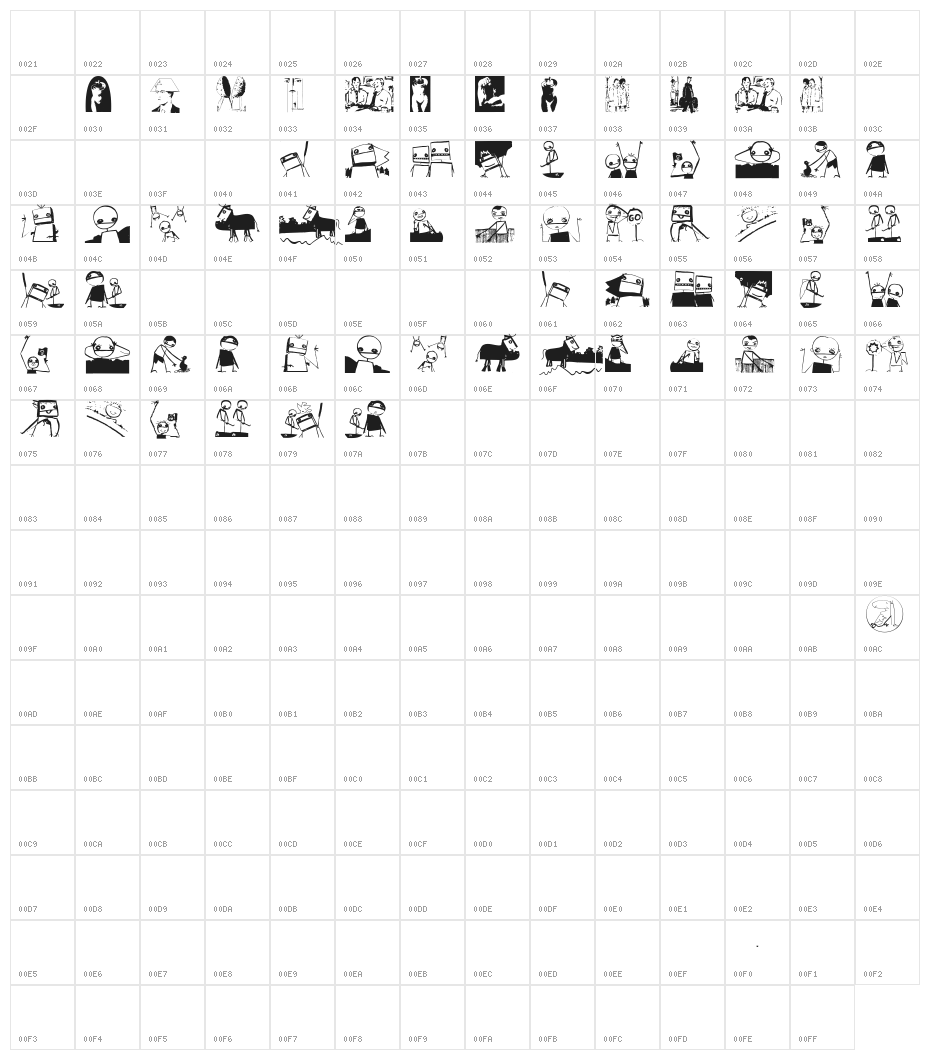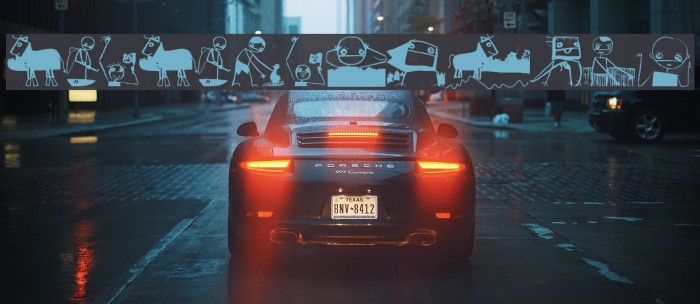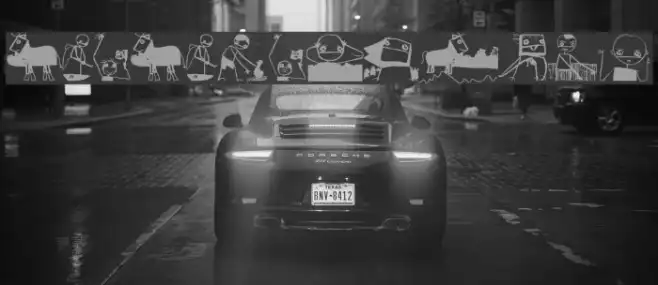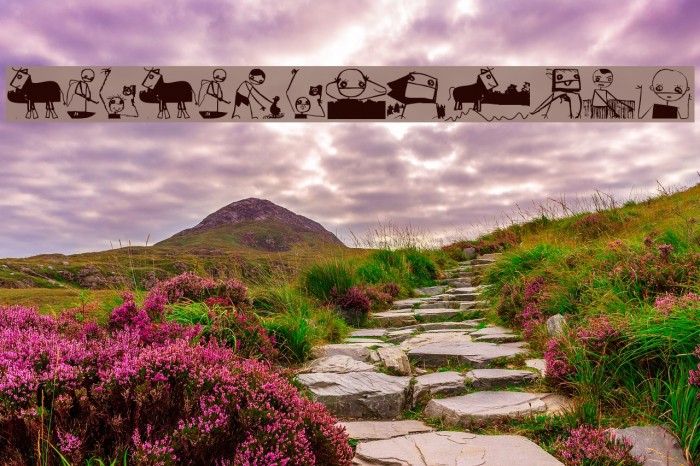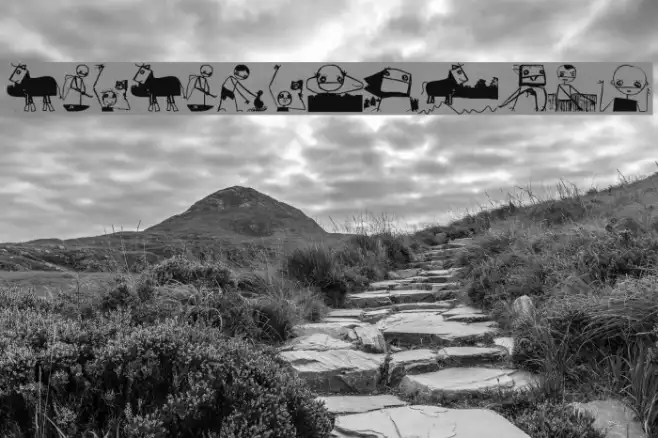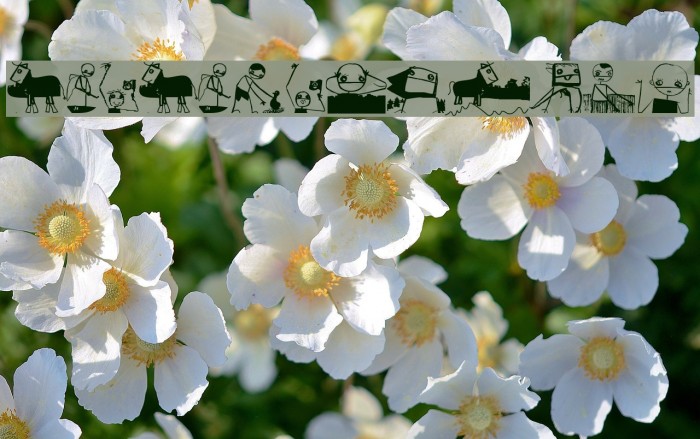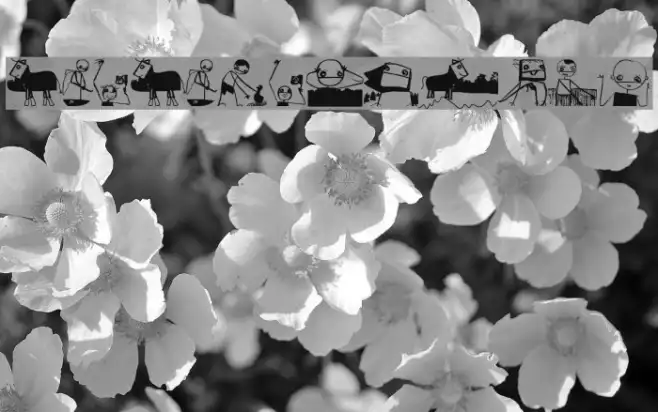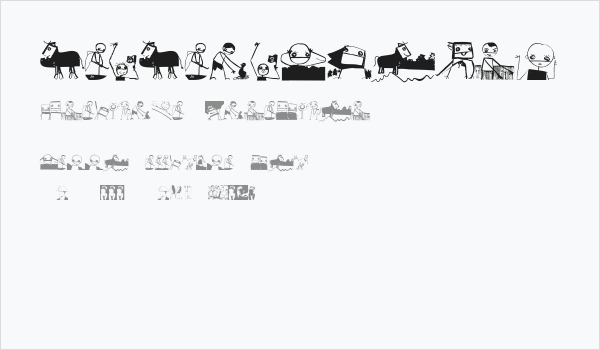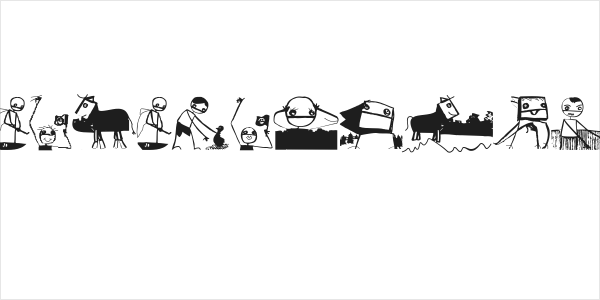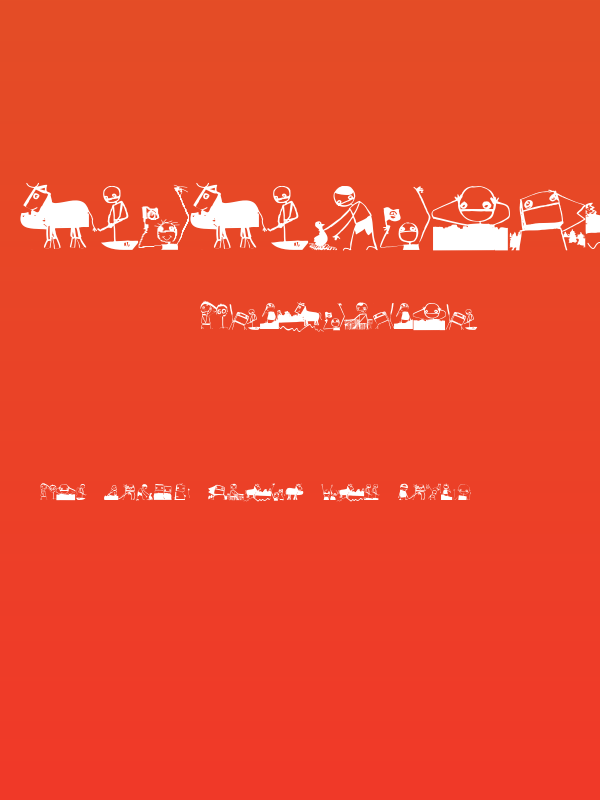
NewNeighbours Font
NewNeighbours Description
A highly decorative and illustrative font composed of hand-drawn cartoon and surrealist figures, each character represented by a unique scene or person, blending comic strip and art styles with high contrast and playful, irregular forms.
| Overall Style | Decorative, Whimsical, Artistic |
| Use Case | Logos, Headlines, Posters, Artistic projects |
| Proposed Projects | ChildrenΓ’β¬β’s books, comic titles, art posters, creative branding, event invitations. |